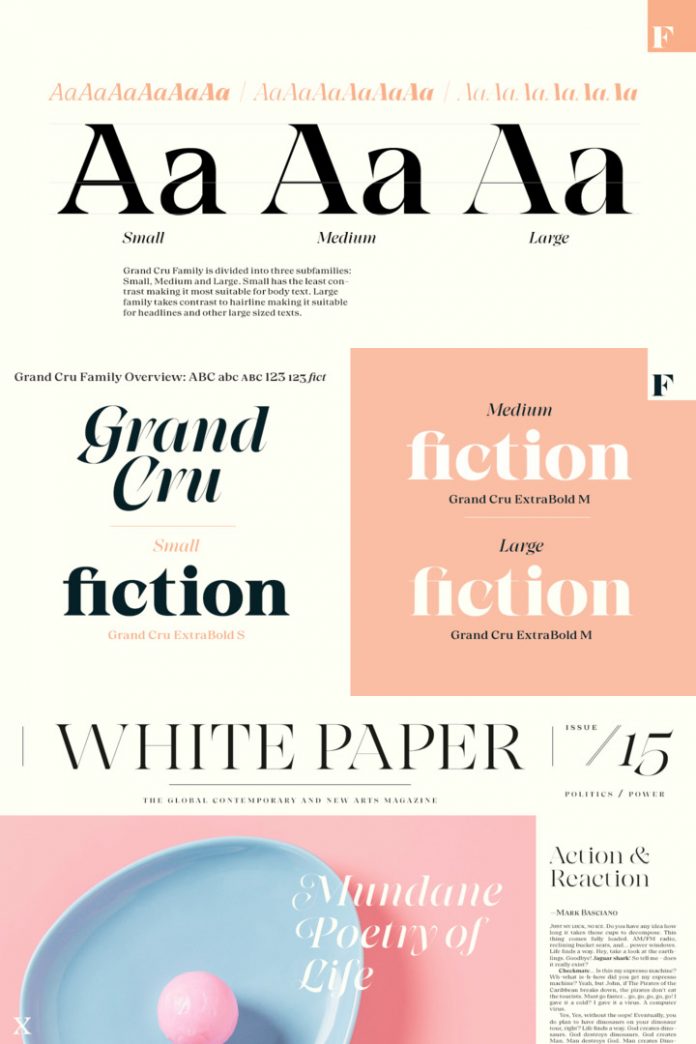
Grand Cru, a characteristic serif font family published by foundry Fenotype.
Published in 2021, Grand Cru is a new serif font family that is divided into three groups: Small, Medium, and Large. These groups have been created according to the amount of contrast in their letterforms. Grand Cru can handle both text and display use—so it’s totally up to you how to use this beautifully designed font family.